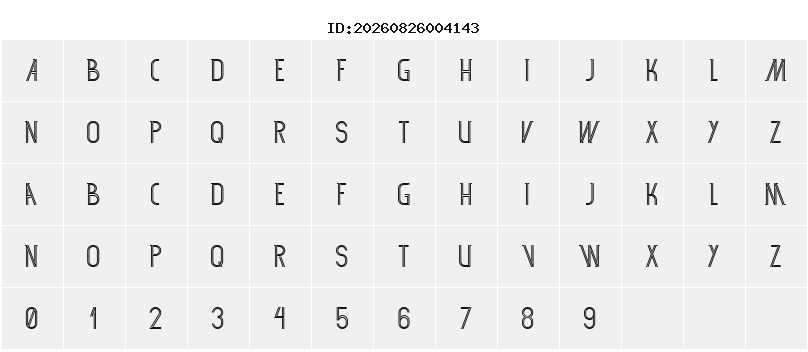
SF 360RT Preview
• Font Name: SF 360RT
• Full Font Name: SF 360RT
• PostScript Name: SF360RT
• Character Count: 82
• Designer: Jens Nink
• Manufacturer: Jens Nink - www.skillforum.org
About SF 360RT.ttf
SF 360RT.ttf is a modern, elegant sans-serif font designed for ultimate readability and visual harmony. Perfect for branding, headlines, web design, and print materials.